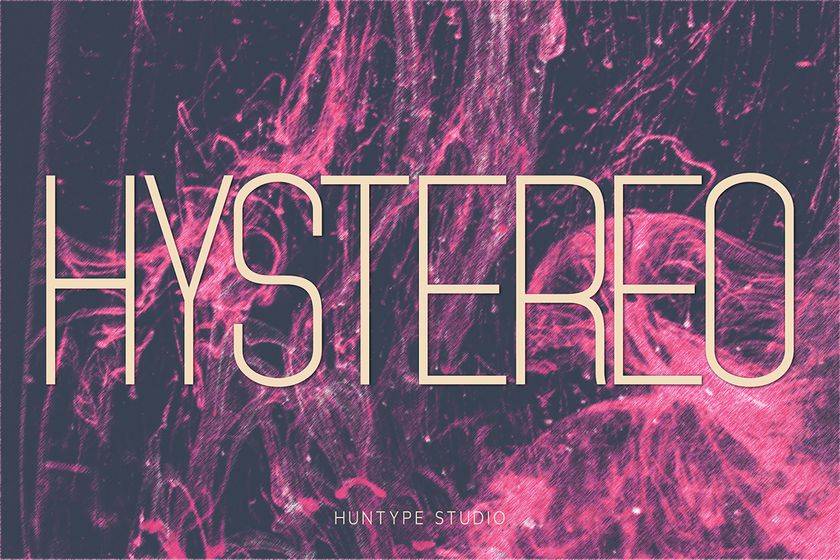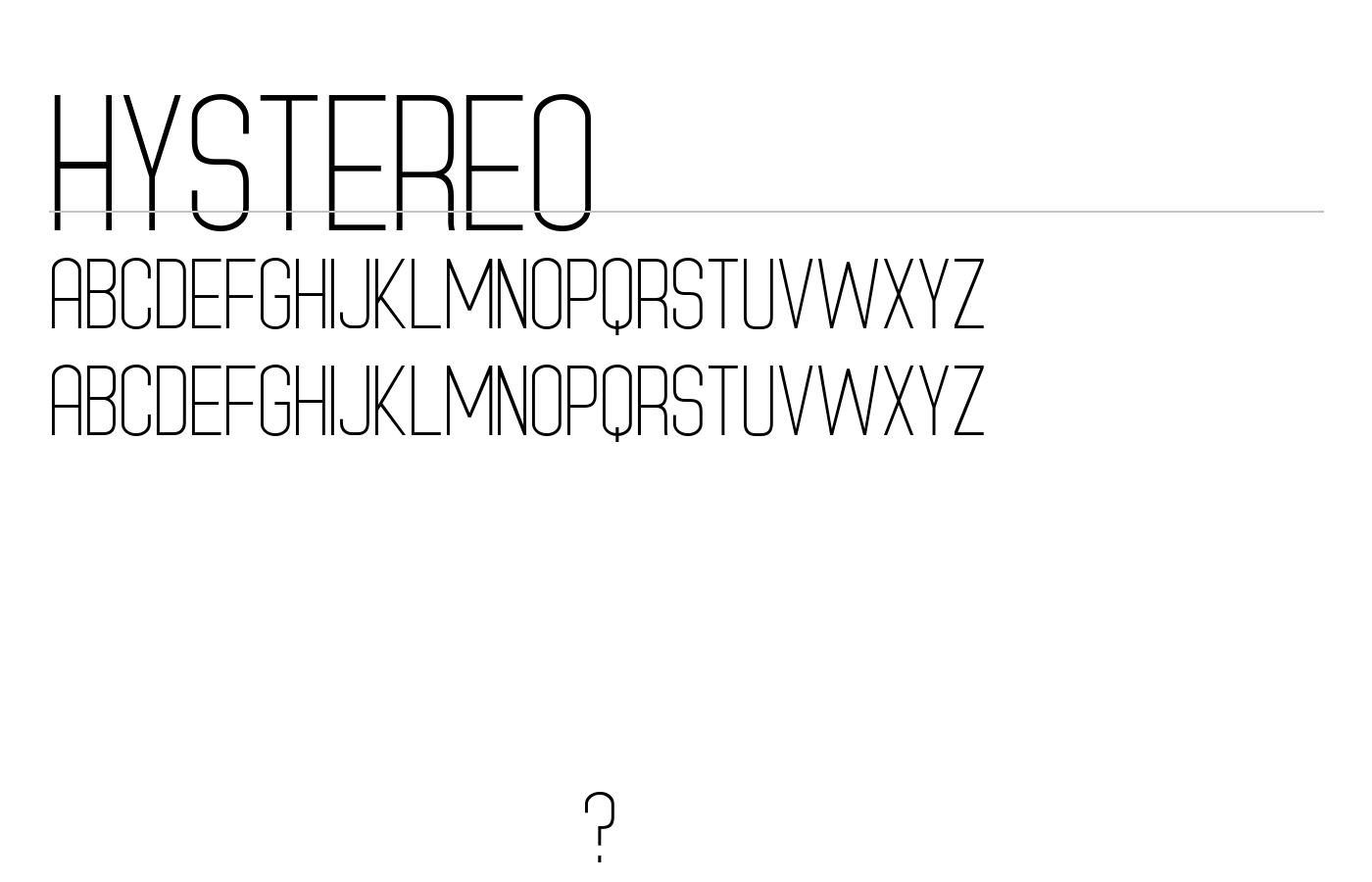
Hystereo is a tall, ultra-light sans serif font with a modern, minimalist style characterized by very thin lines and extended letterforms. Its narrow width and high contrast in height create an elegant, futuristic feel, making it perfect for contemporary branding, fashion headlines, or editorial design that requires a sleek and distinctive appearance. This font stands out in large sizes where its refined structure and unique letter shapes can truly shine.
Hystereo Font
About Hystereo Font